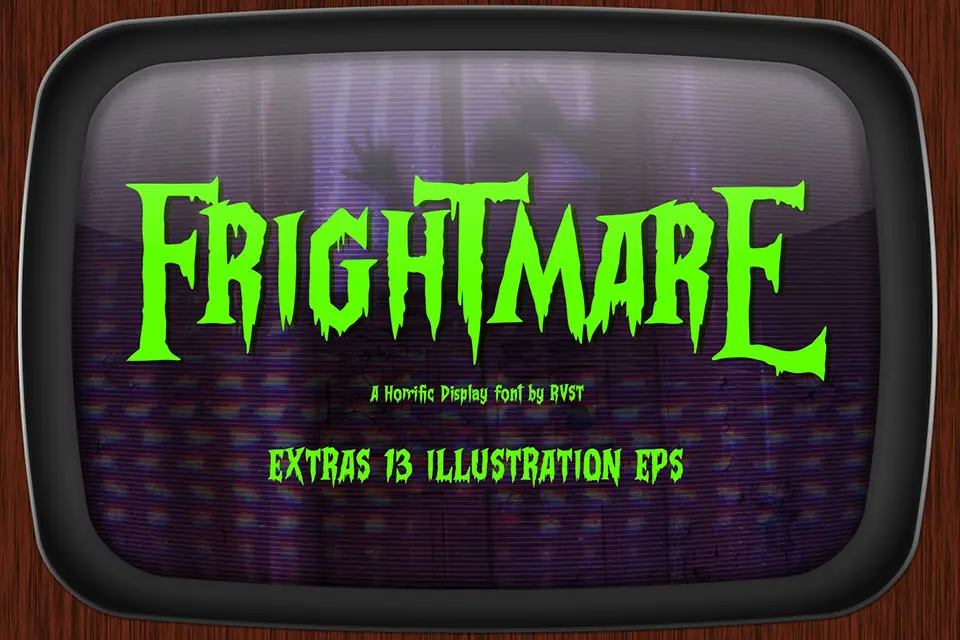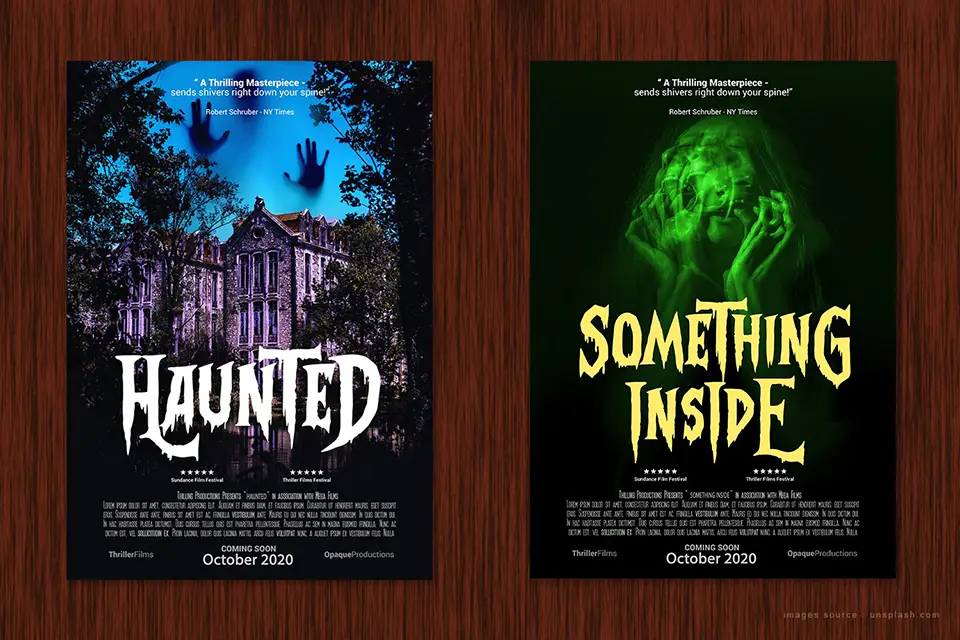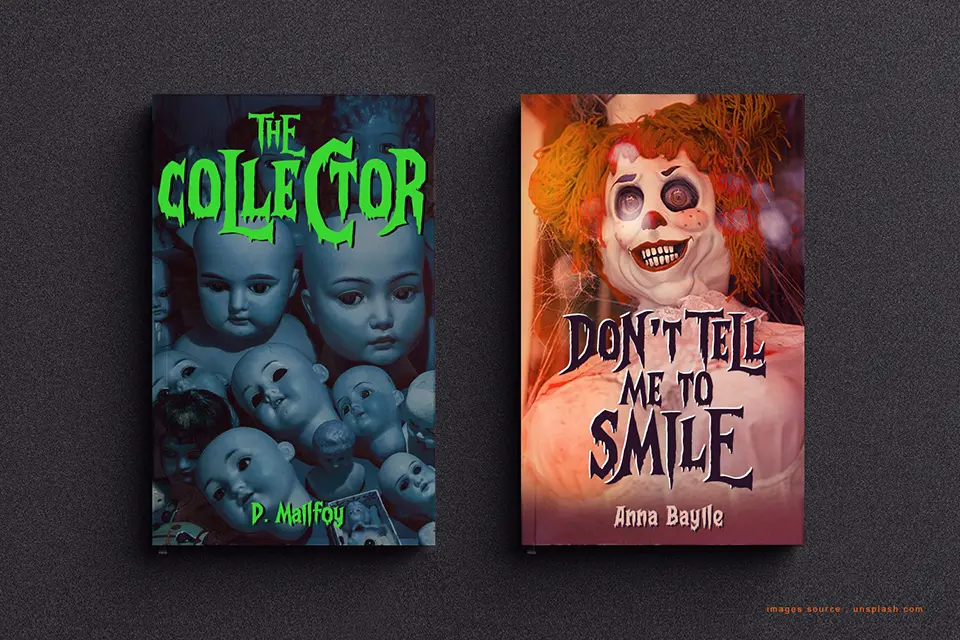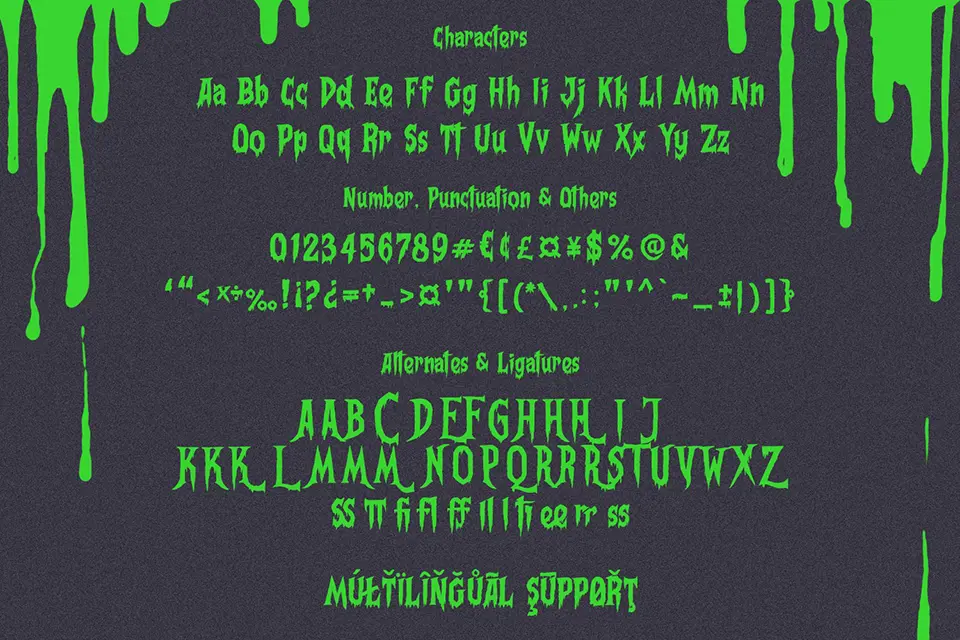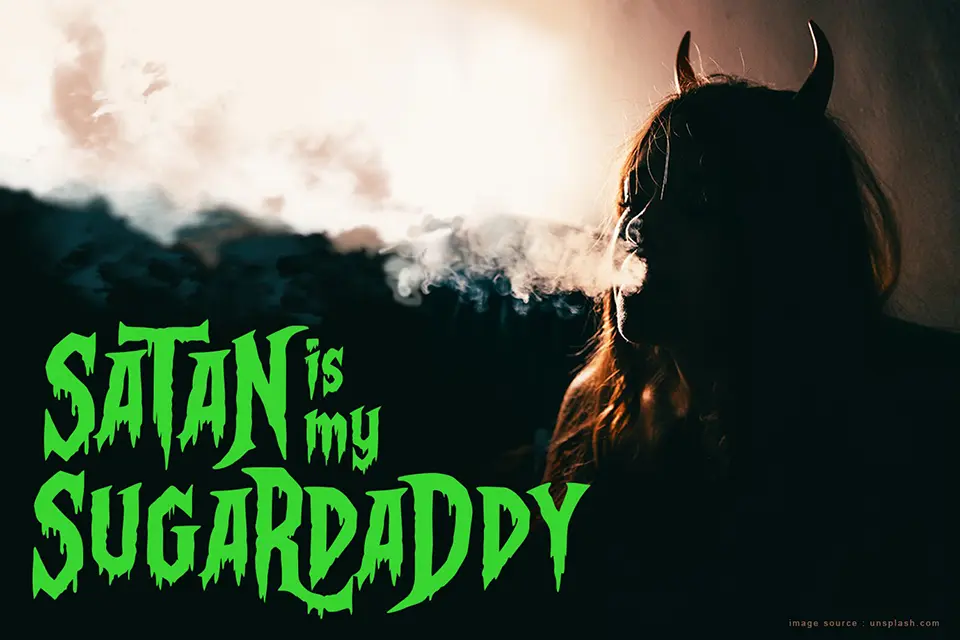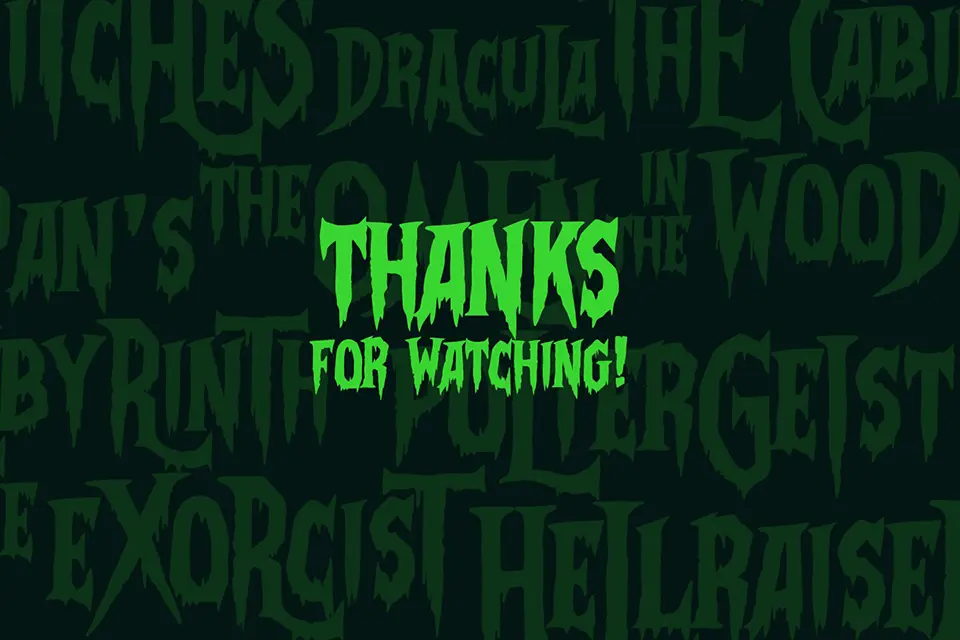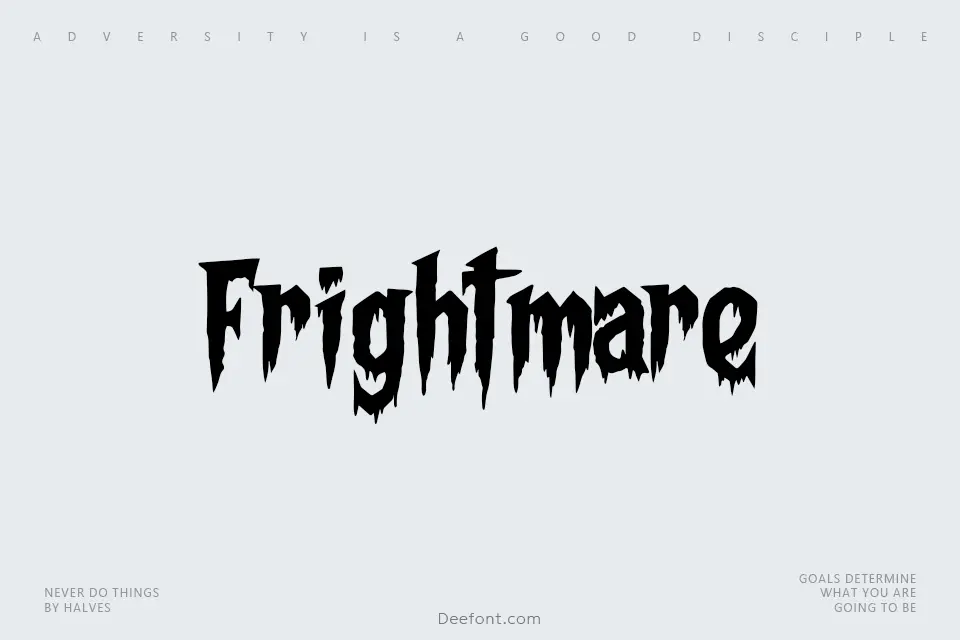
Frightmare Font
Frightmare Font is a striking display font designed by RVST (Indra Renov) that captures the eerie essence of classic horror films. Its jagged edges, irregular contours, and dripping ink effects evoke a chilling aesthetic perfect for Halloween-themed projects, horror movie titles, or haunted event promotions. The font’s exaggerated sharp angles and gothic-inspired details create a sense of suspense and dread, while its uneven baseline mimics the unsettling vibe of vintage horror posters. Though free for personal use, commercial licensing requires purchase. Frightmare’s bold, uppercase-centric design includes unique glyphs and supports multiple languages, making it ideal for logos, merchandise, or any creative project demanding a macabre touch.